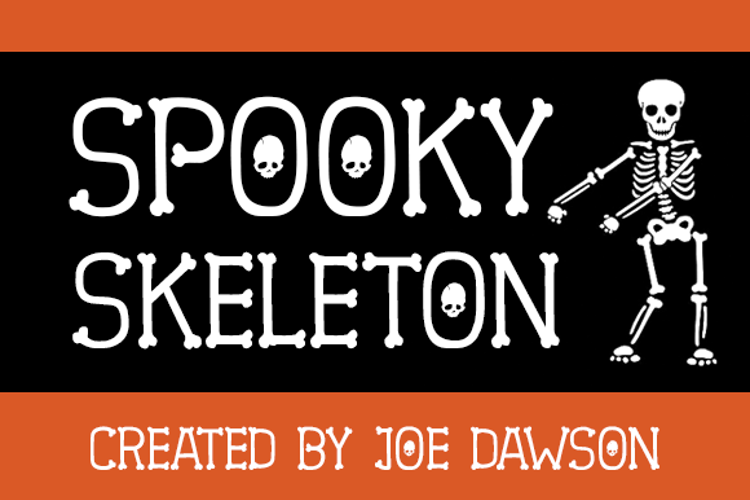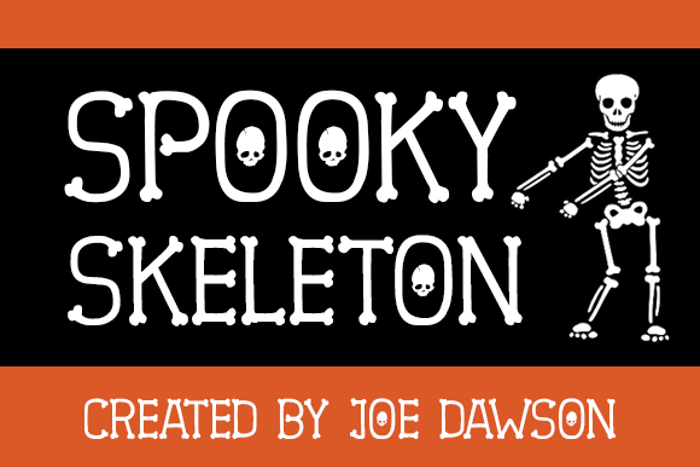
Spooky Skeleton Font
Spooky Skeleton is a fun, cool and thin display font. Add this beautiful display font to each of your creative ideas and notice how it makes them stand out!